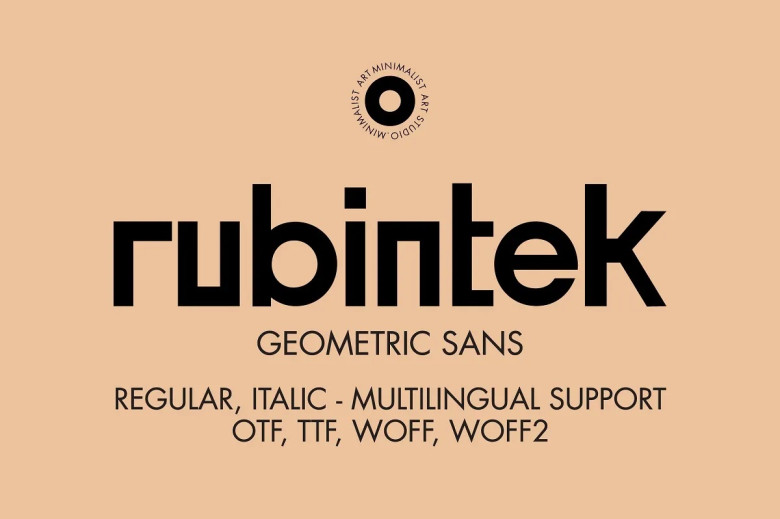
Rubintek Font
Rubintek is an elegant sans-serif display font featuring geometric forms in high contrast. With clean lines and precise angles creating an enduring aesthetic combining modernity with elegance, Rubintek can be customized in weights and styles for bold looks while its timeless geometric beauty will bring modernity into any design project.
Perfect for print projects, branding initiatives or websites alike. Custom weights and styles available so your boldest designs stand out.
Rubintek Sans Font